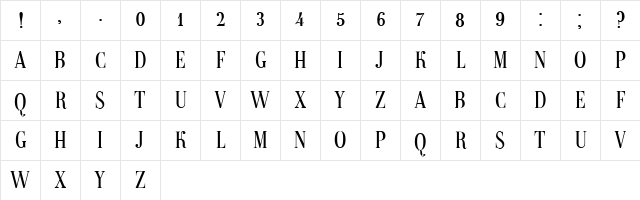
Magazine Regular
Magazine Family
Complete Magazine Regular glyph index. Displaying only characters natively supported by Magazine Regular font.
Design Context for Magazine
Magazine is a composed and adaptable typeface that performs quietly and consistently across a wide range of design contexts.